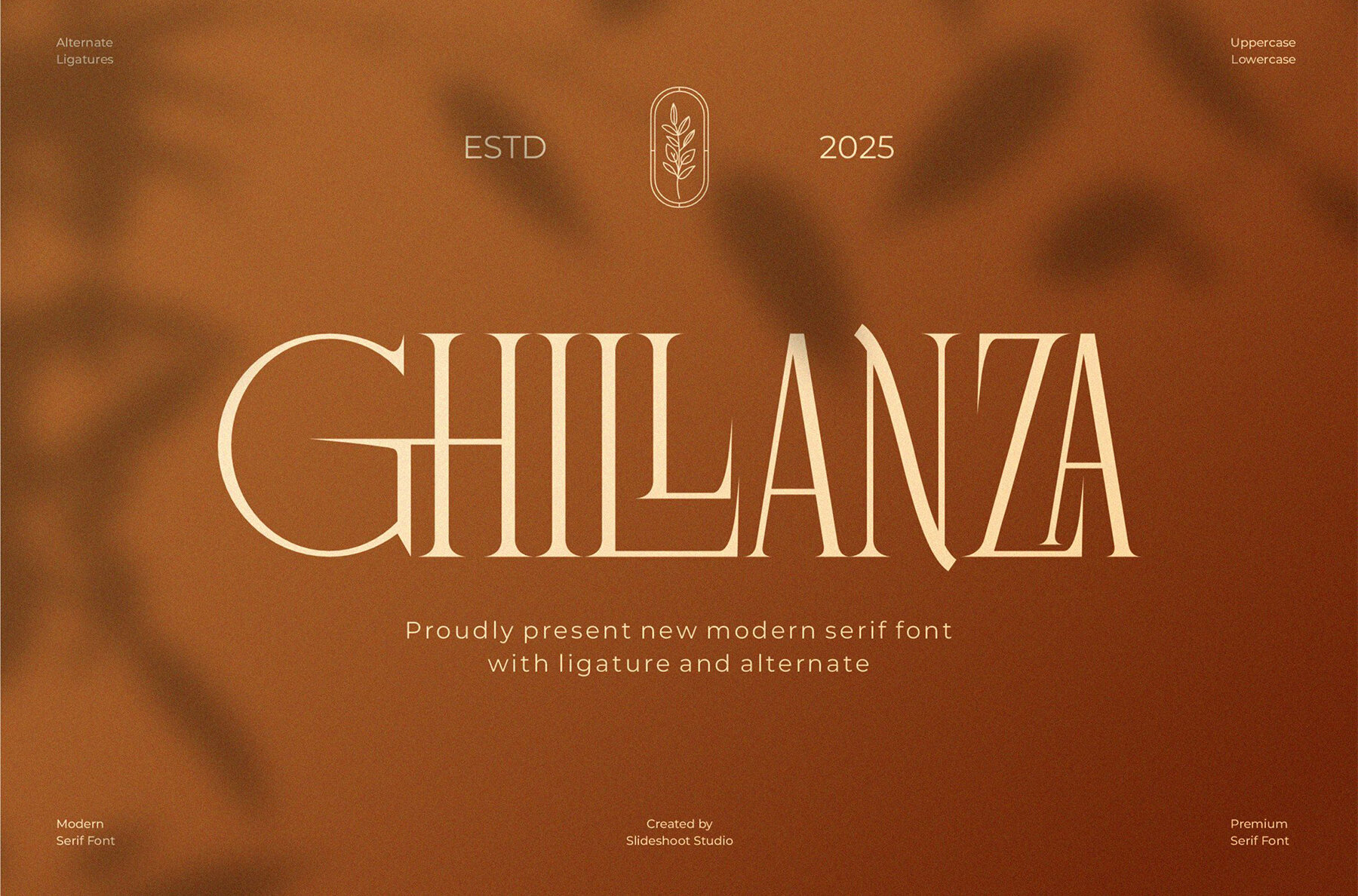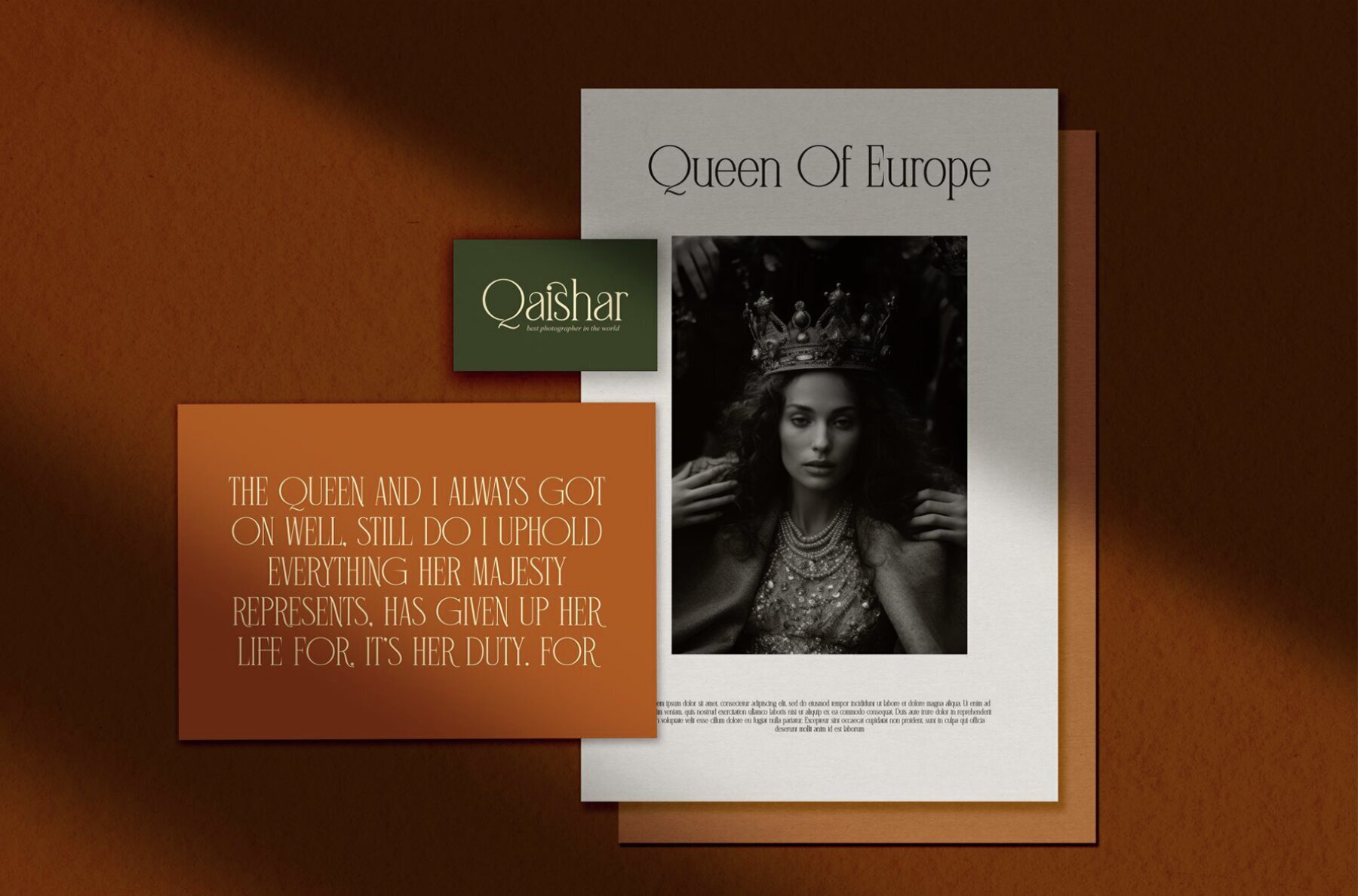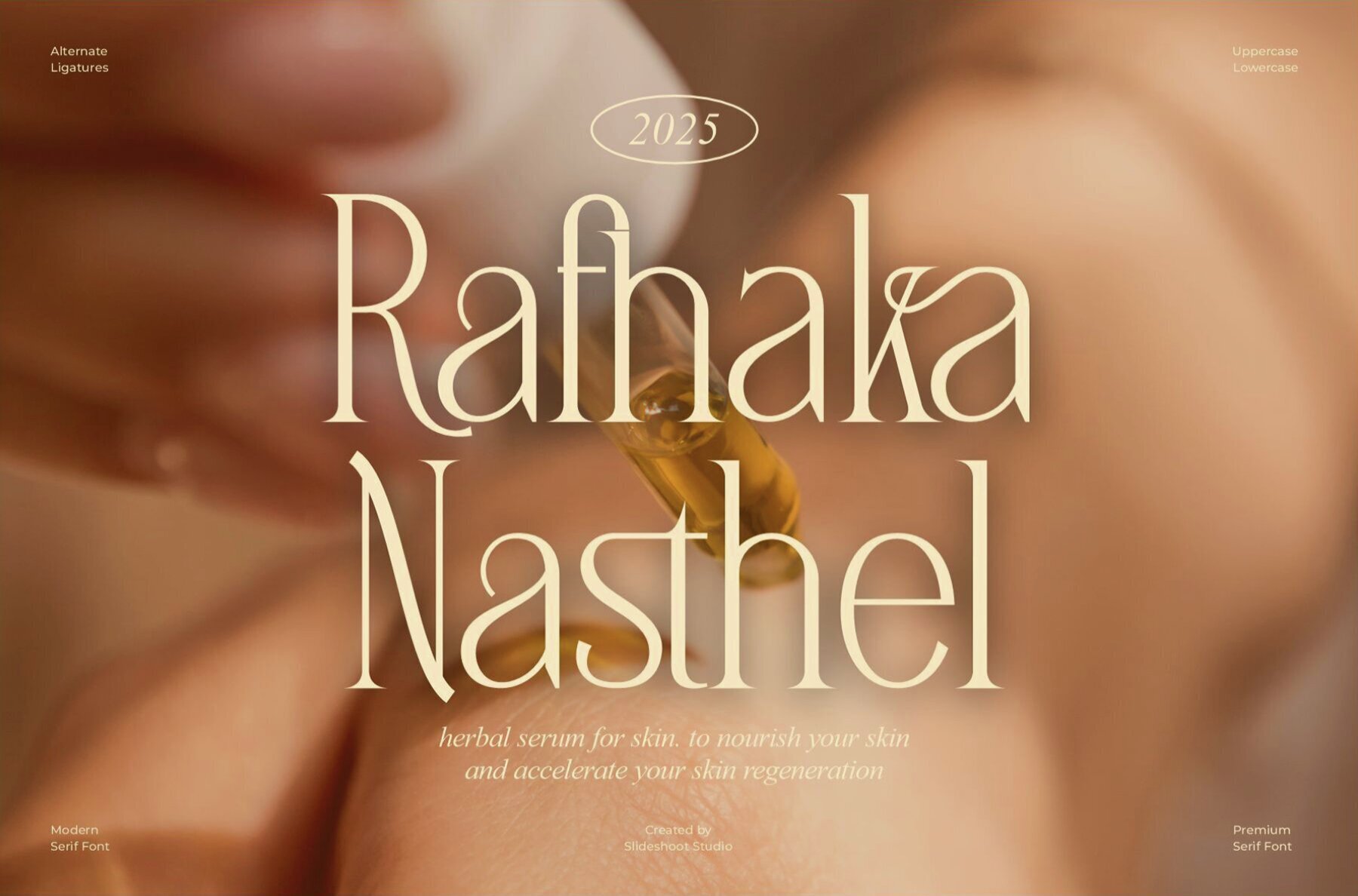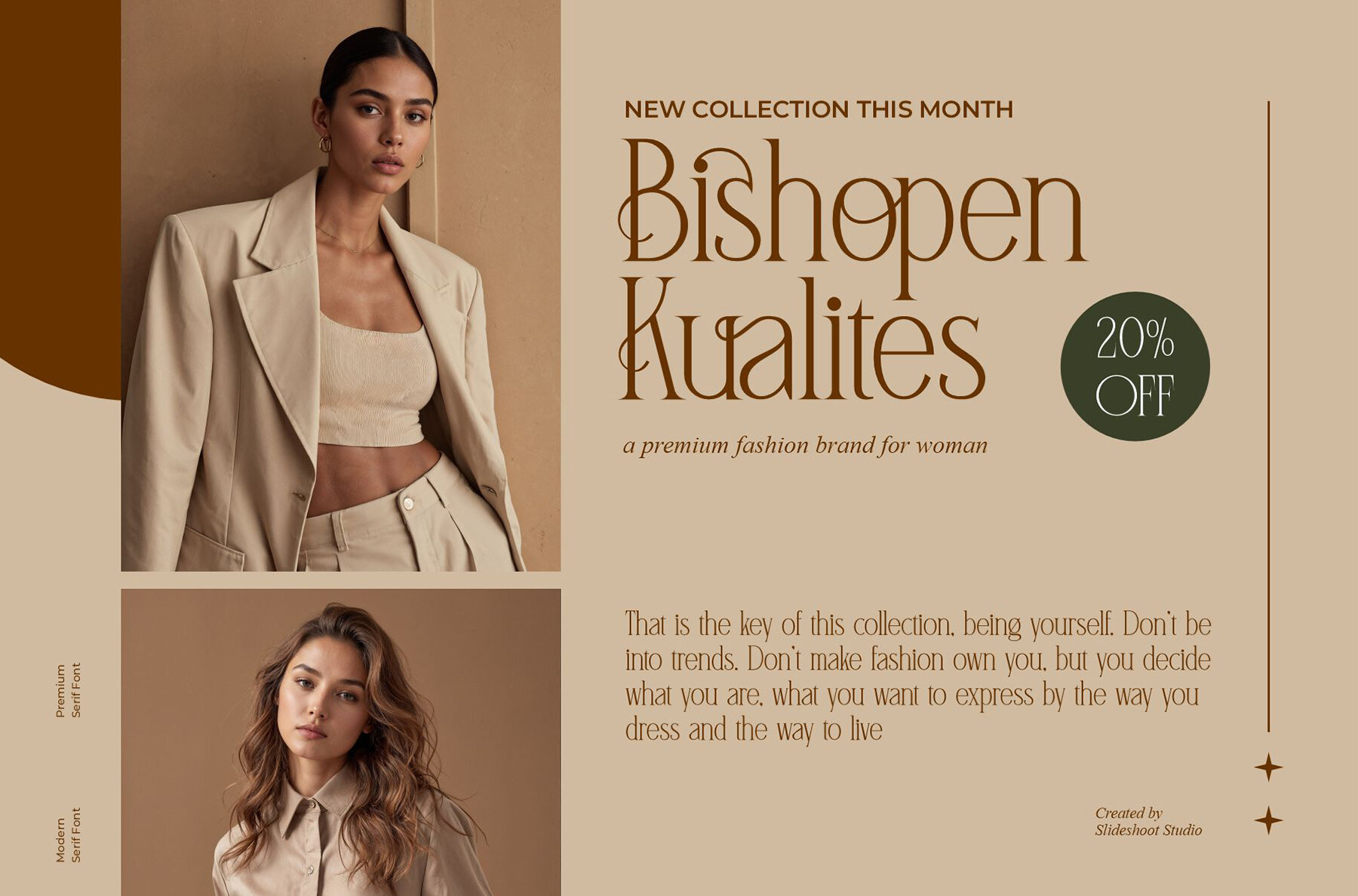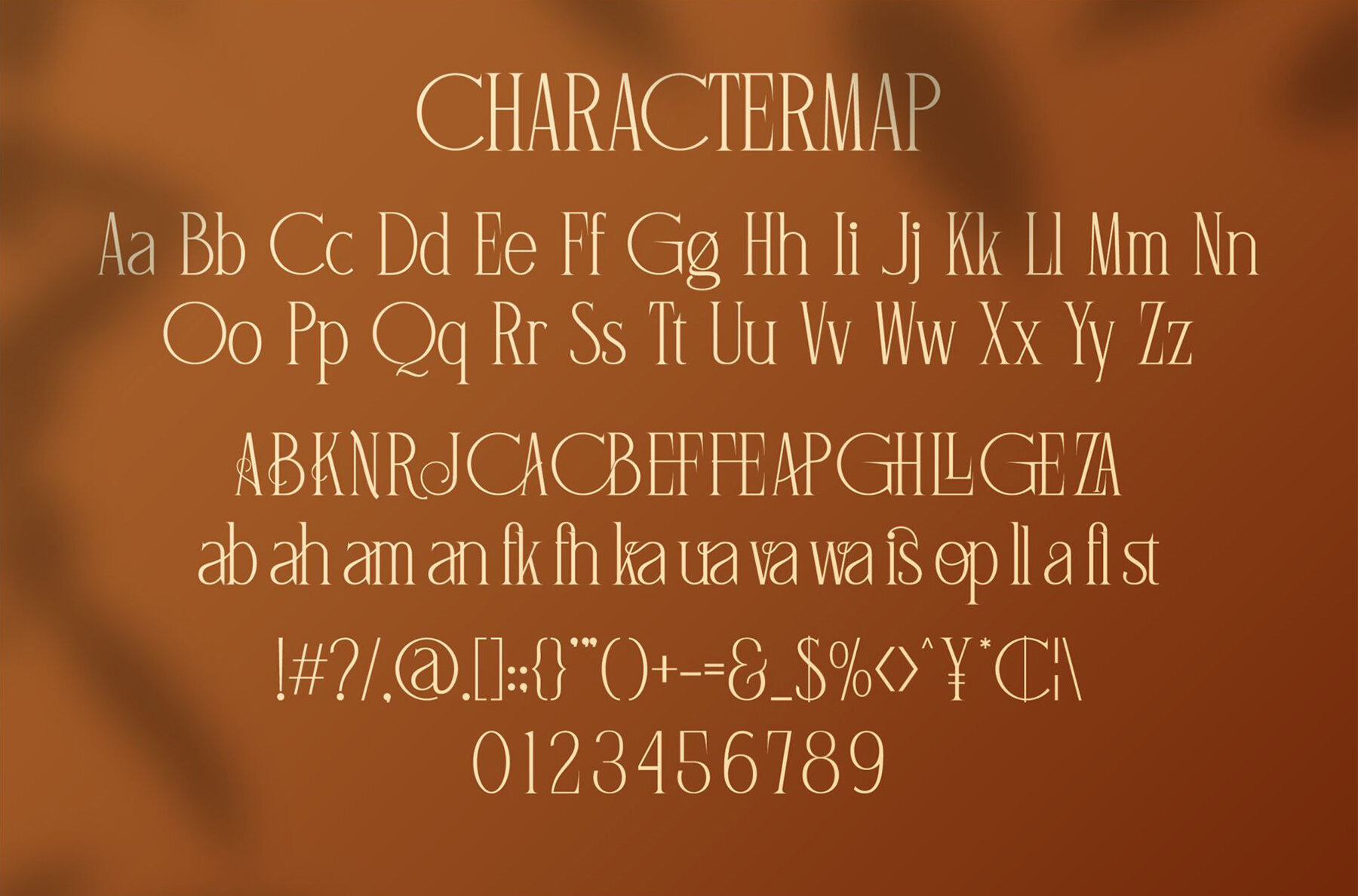
Ghillanza Font
Ghillanza
Ghillanza is a sophisticated serif font with a sleek, modern twist. It's the perfect companion for your creative projects, from elegant invitation cards and striking company logos to captivating movie titles and memorable book covers. Elevate your brand identity with ease by featuring Ghillanza in business cards and brand names.Ghillanza Font: Modern Serif Elegance